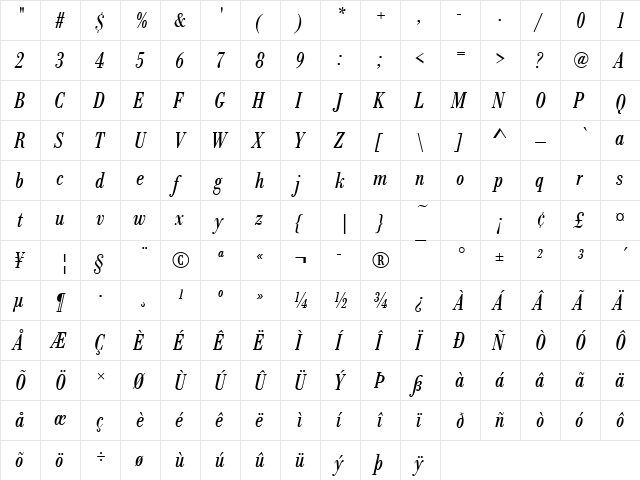
BodoniAntTCon Italic
Design Context for BodoniAntTCon Typeface
BodoniAntTCon takes a measured approach to typography — its balanced proportions and neutral character make it a reliable workhorse for both digital and print work. The dynamic lean of this cut emphasises speed and emphasis in any layout.